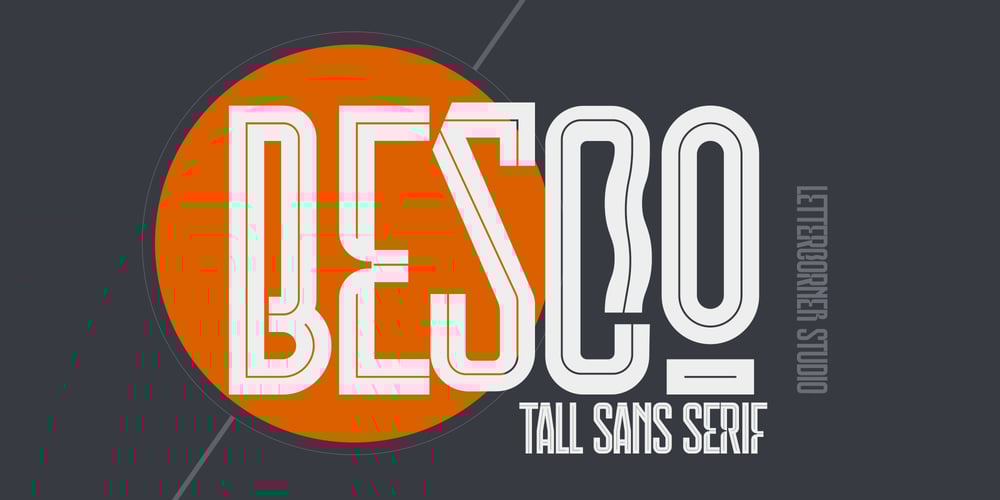
Besco Font Family was designed by Muhammad Afif Ersya and published by Mevstory Studio. Besco contains 3 styles and family package options. Besco is an ultra condensed sans serif display typeface made up of 2 fonts in a variety of styles. A versatile typeface that includes rounded versions of each style for a softer option.